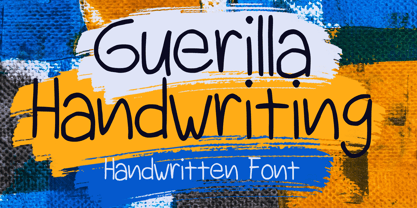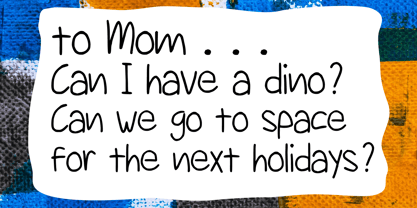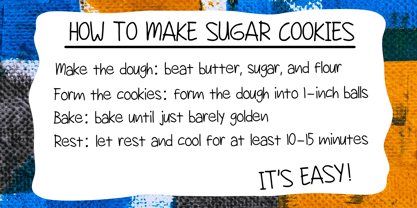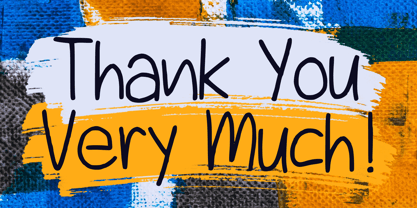
Guerilla Handwriting
by Mvmet
The Guerilla Handwriting Font Family was designed by Gabriel Valentinus and published by Mvmet. Guerilla Handwriting contains 1 styles. More about this family
Guerilla Handwriting is a versatile thin handwritten font you can use for anything. It will elevate a wide range of design projects to the highest level. You can use this font for many design ideas such as stickers, t-shirt designs, amazing logo designs, magazine or book covers, comics, cartoon drawings, and many more. This font will add a super cool touch to your designs!
Designers: Gabriel Valentinus
Foundry: Mvmet